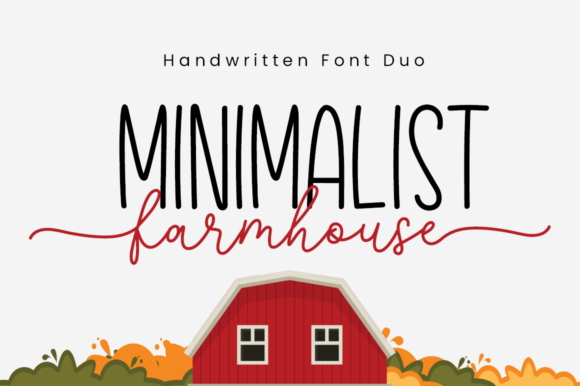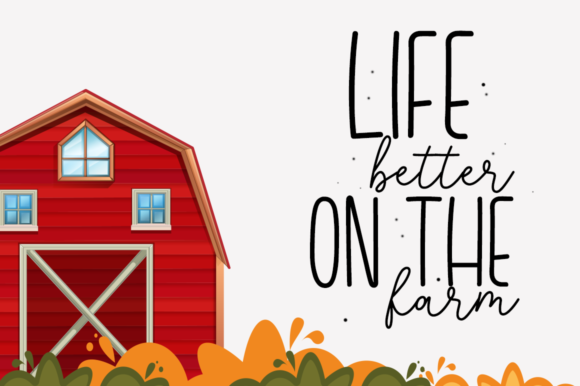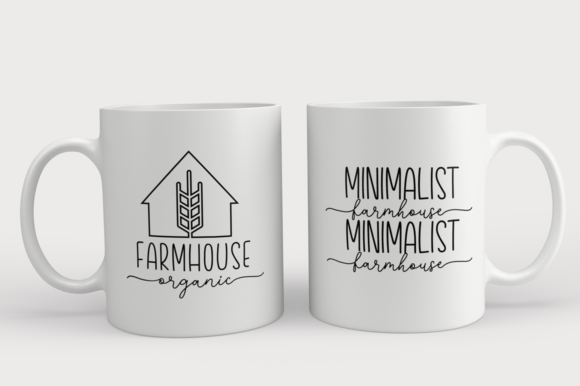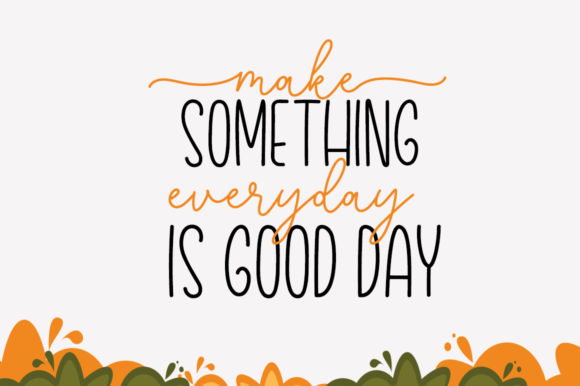
Minimalist Farmhouse Font
About the Minimalist Farmhouse Font
Meet Minimalist Farmhouse Font, a stunning font that brings a touch of elegance and professionalism to any design. Minimalist Farmhouse is a cute duo font (handwritten and sans serif). Trendy and stylish, this font will elevate each of your creations. Minimalist Farmhouse is PUA encoded which means you can access all of the glyphs and swashes with ease!
This font duo is ideally suited for projects requiring a touch of rustic charm with a modern twist. It works exceptionally well in headlines, short text blocks on social media graphics, or branding elements for businesses focusing on home goods, crafts, or food. Consider using it for packaging design, logos, or short, impactful quotes in marketing materials. Avoid using the handwritten style for large amounts of body text; its legibility suffers in extended paragraphs.
The sans-serif counterpart excels in subheadings or providing visual contrast within a layout featuring the handwritten style. It also functions well in UI elements where clear readability is paramount. For effective pairings, consider a clean geometric sans-serif for a modern feel, or a classic serif like Garamond or Baskerville for a touch of traditional elegance. A simple script font could add a layer of sophistication if used sparingly.
Minimalist Farmhouse possesses a friendly, approachable personality with a hint of rustic charm, making it suitable for brands that project warmth and authenticity. The combination of the handwritten and sans-serif styles allows for versatile application, balancing casual charm with clear readability where needed.